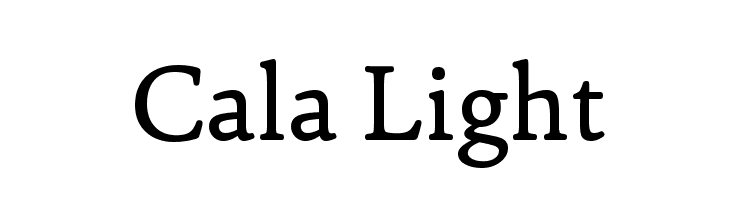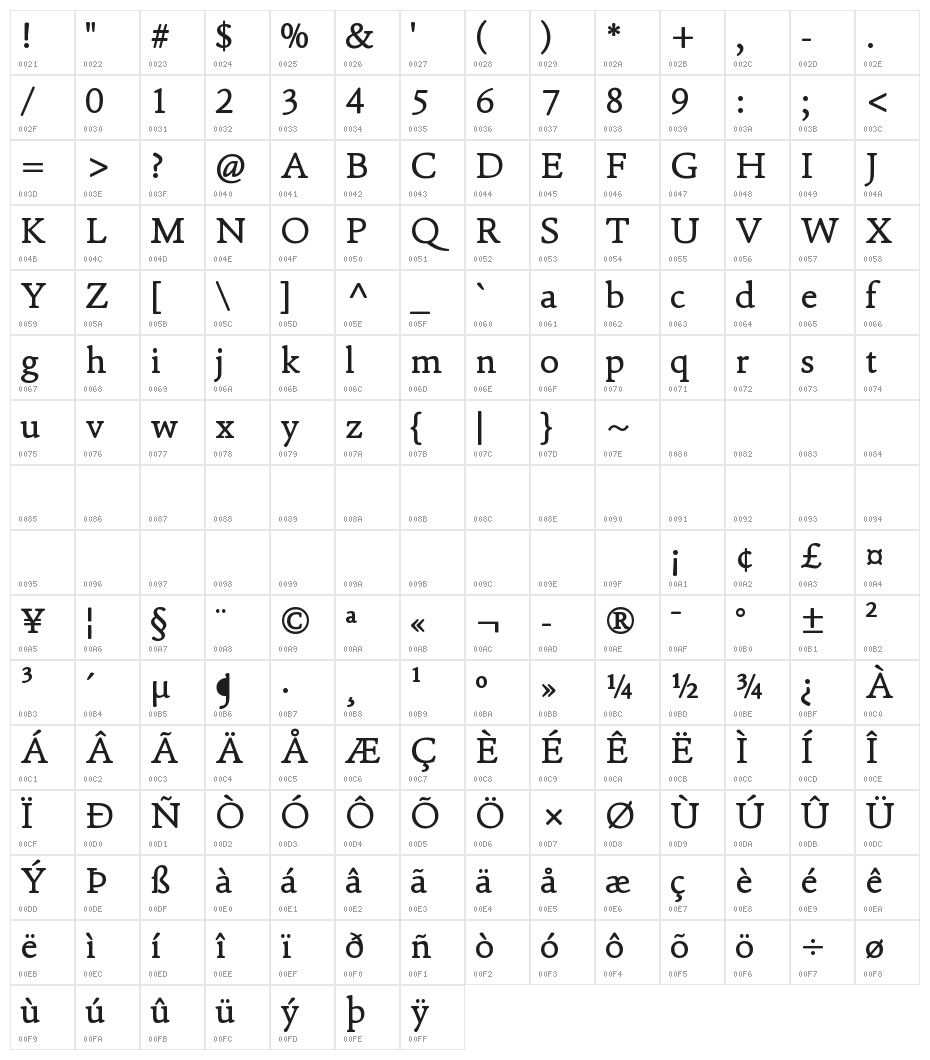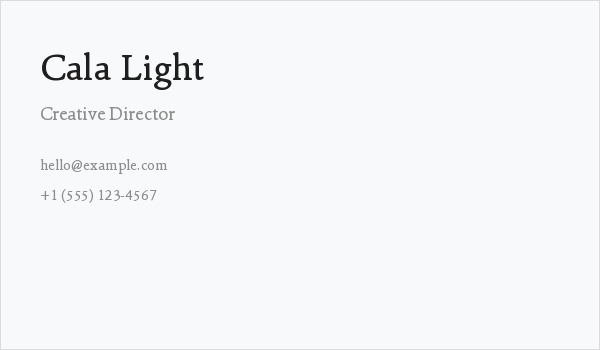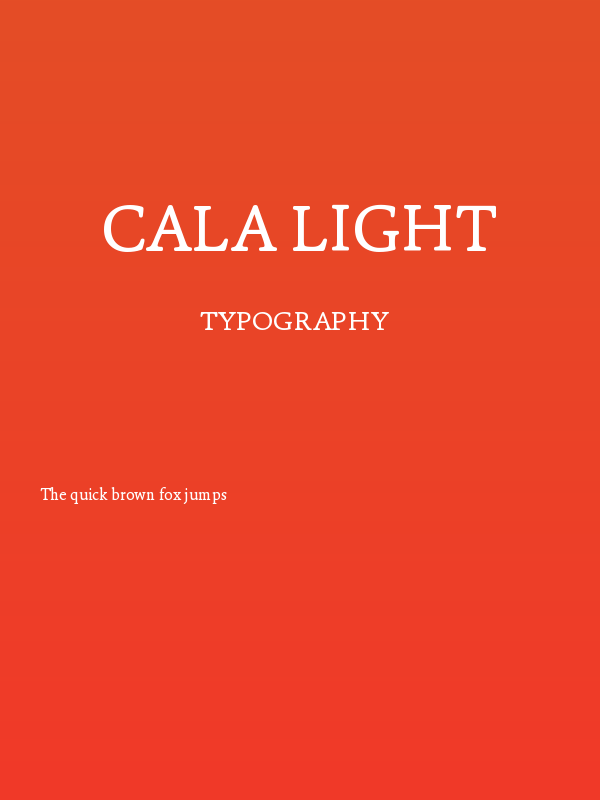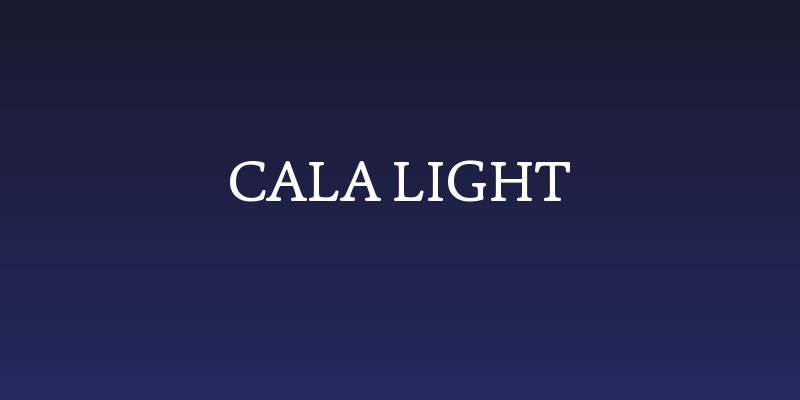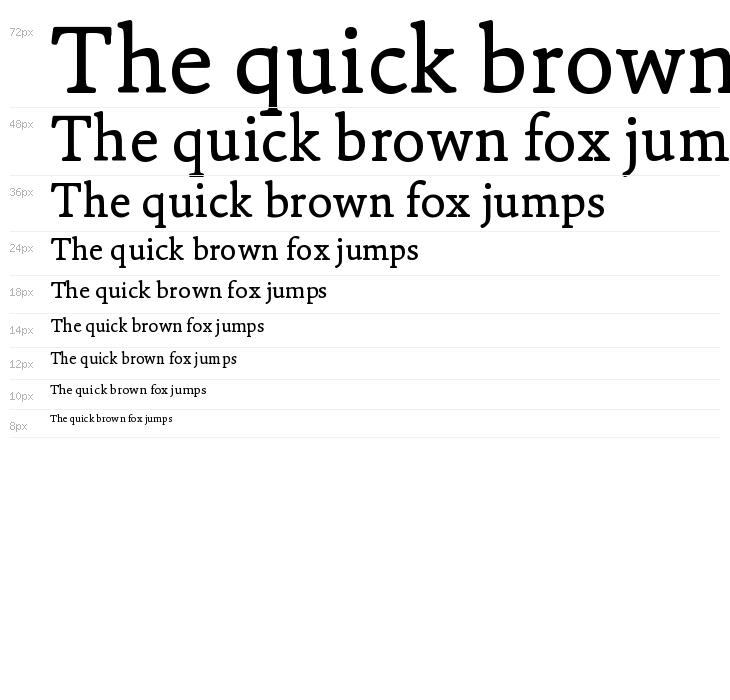
Cala Light Font
Cala Light Description
This font features a classic serif style with elegant, flowing lines and a refined appearance. The uppercase letters are bold and commanding, while the lowercase letters maintain a graceful and balanced form. The numerals are clear and distinct, making them easy to read. Special characters are designed with the same attention to detail, ensuring consistency throughout. The overall design is sophisticated, making it suitable for formal and professional applications. The font's light weight adds a touch of delicacy, enhancing its versatility for various design needs.
| Proposed Projects | Ideal for book covers, formal invitations, branding materials, and editorial design. |